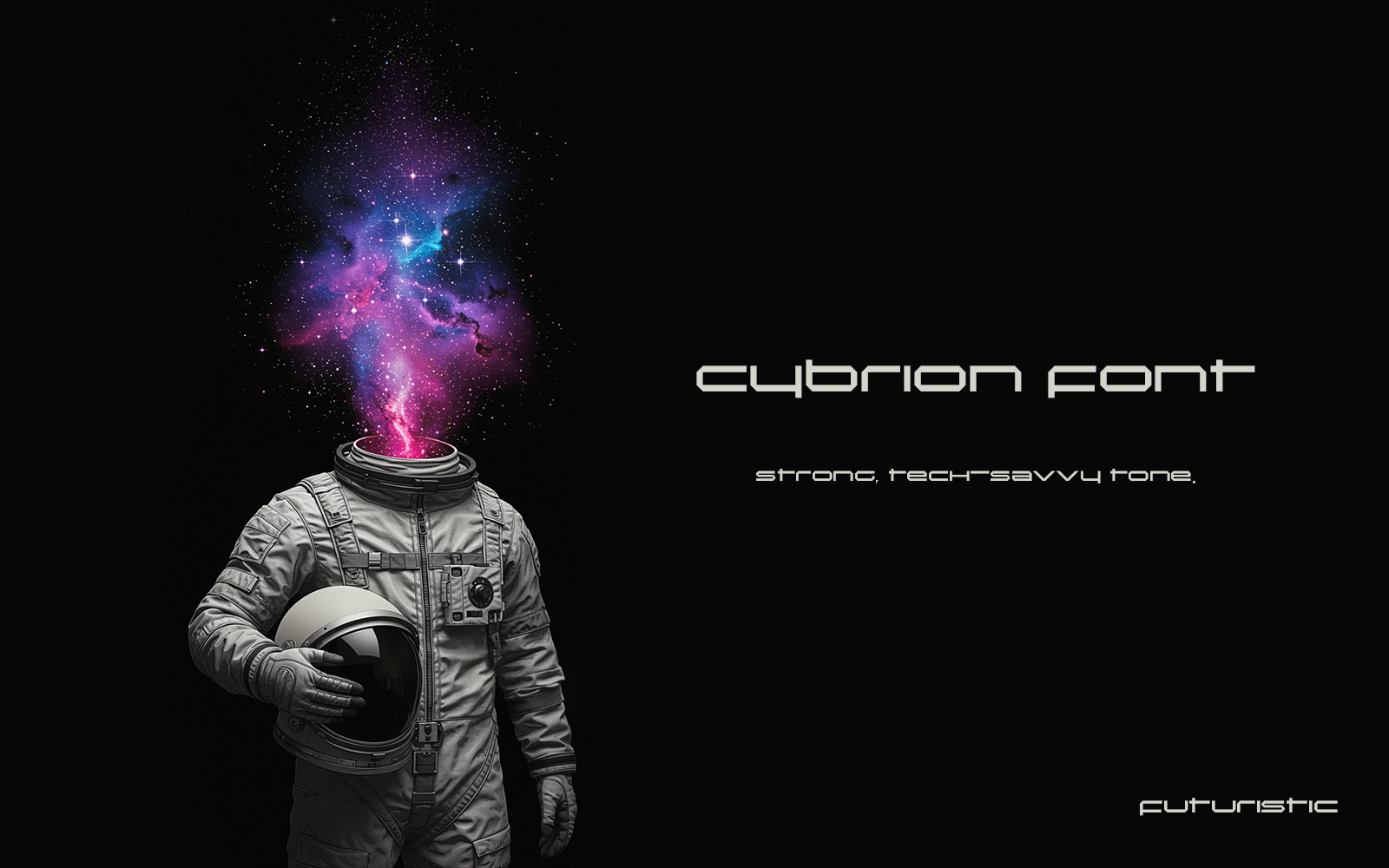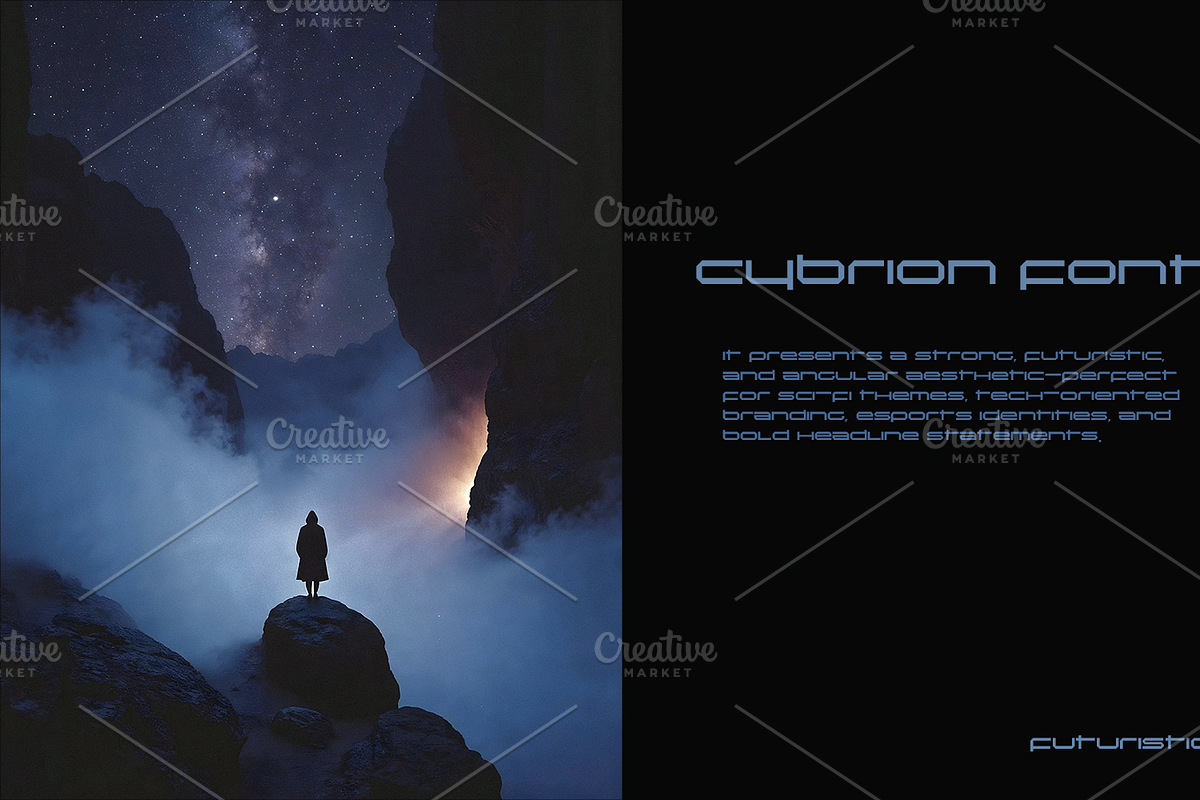
Future Meets Force.
Step into tomorrow with Cybrion — a typeface forged for the bold, the brave, and the visionary. With its sharp angles, tech-infused structure, and commanding presence, Inductio brings a futuristic pulse to your designs. Ideal for high-impact branding, sci-fi visuals, and esports dominance.
Lead the charge. Set the tone. Induct the future.